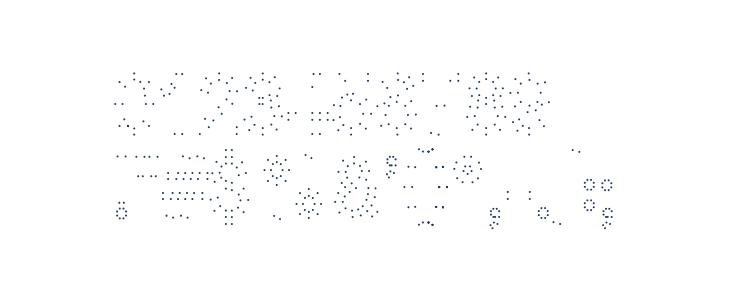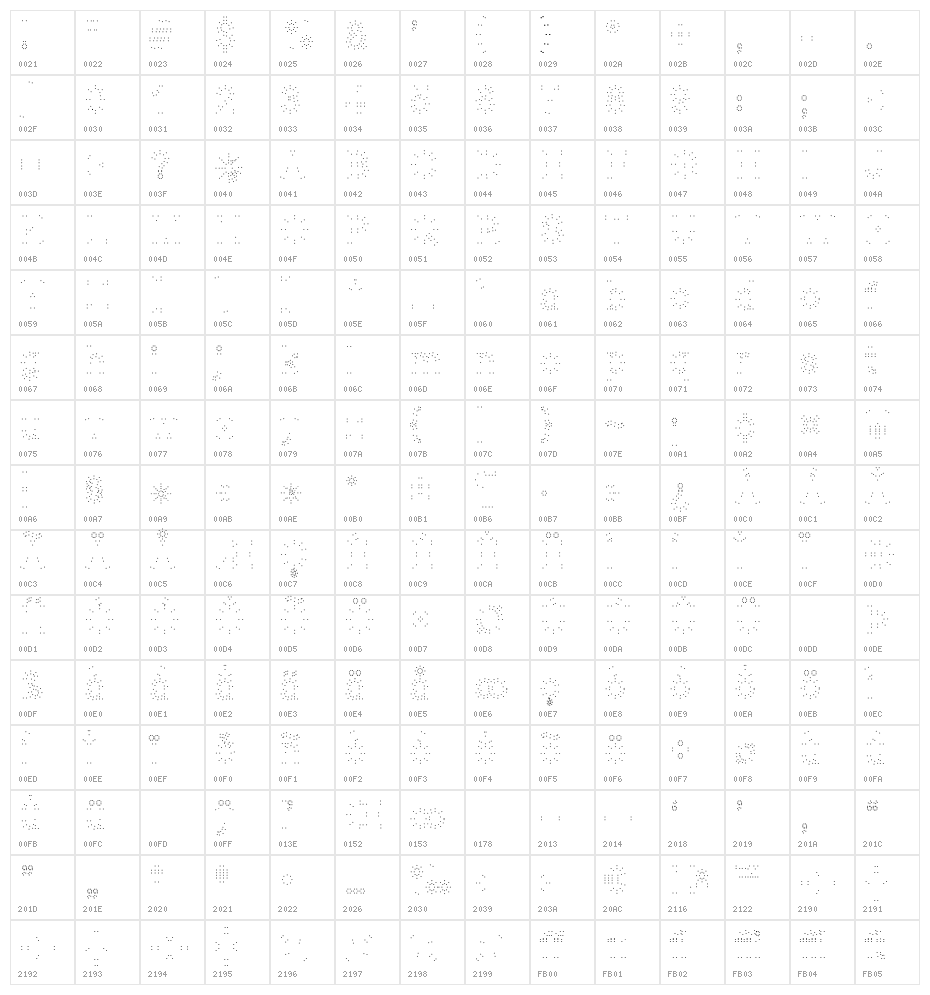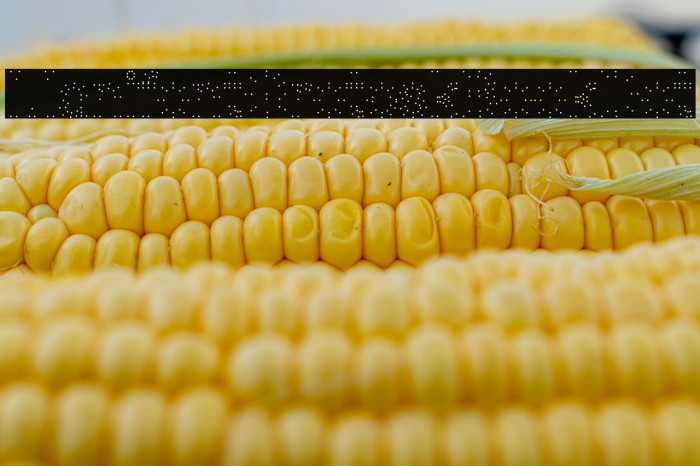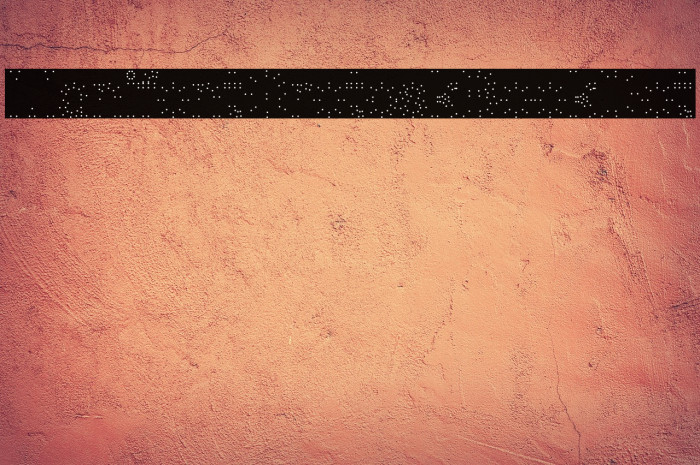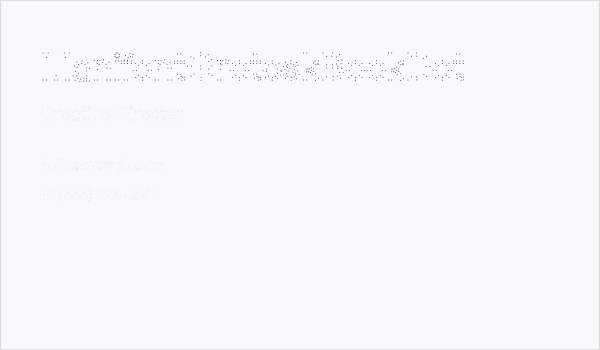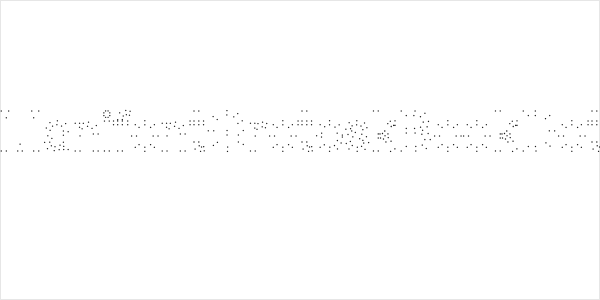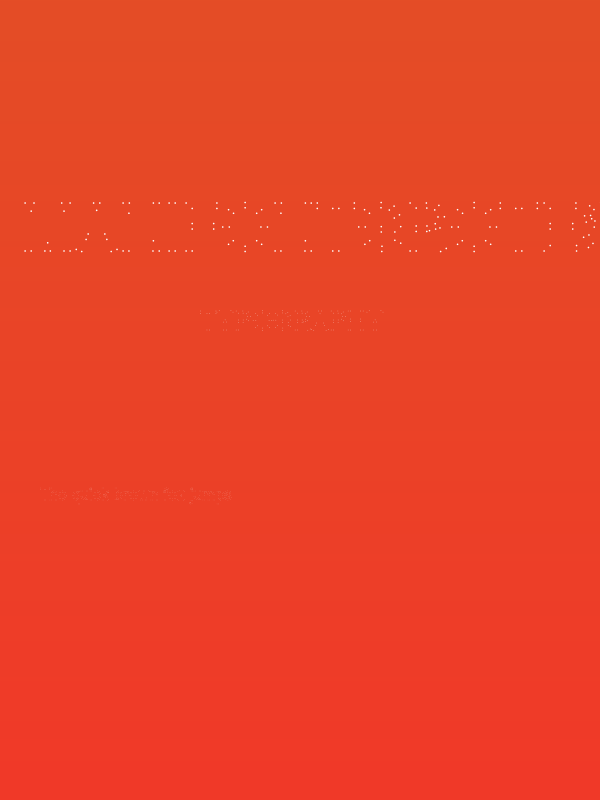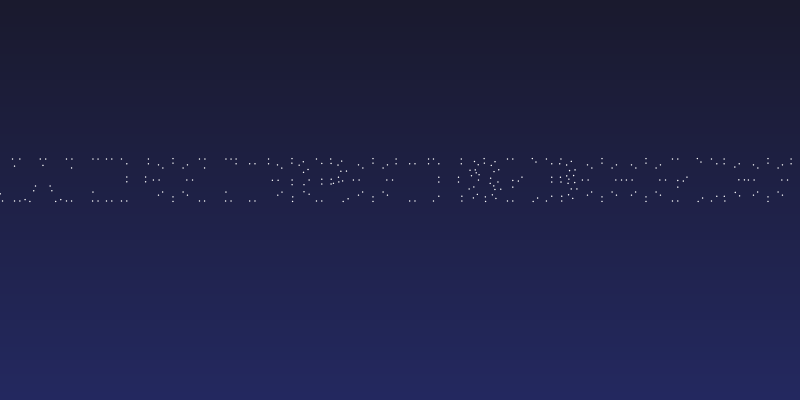
ManifontGroteskBookDot Font
ManifontGroteskBookDot Description
This font features a unique dot matrix style, reminiscent of old computer printouts and digital displays. Each character is composed of a grid of dots, creating a pixelated effect that is both retro and modern. The design is consistent across all characters, maintaining a uniform appearance that is easy to read while still being visually interesting. The spacing between the dots within each character is tight, which helps to form a cohesive letter shape. This font is particularly effective in conveying a sense of technology and innovation, making it ideal for projects that require a futuristic or digital aesthetic.
| Proposed Projects | Ideal for tech-themed designs, digital art, retro gaming graphics, and innovative branding. |